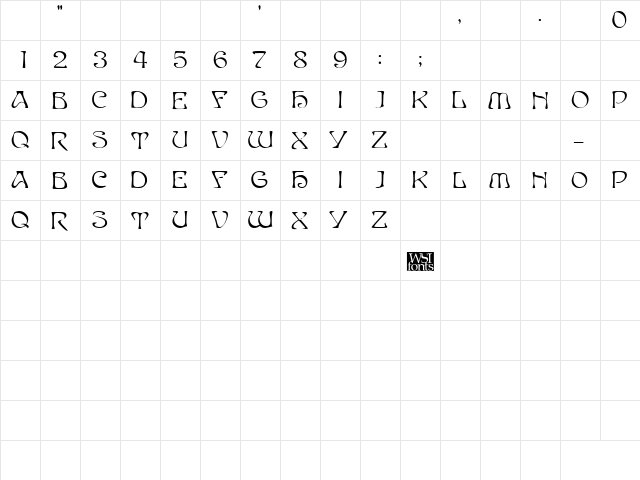
IstraNouveauDisplay Regular
Design Context for IstraNouveauDisplay Typeface
IstraNouveauDisplay brings ornamental detail and strong personality to headlines and identities, where visual impact matters more than quiet functionality.
Font Pairing: Pair with a clean neutral sans-serif for body copy to let IstraNouveauDisplay's character lead without overwhelming the composition.
Pro Tip: Treat IstraNouveauDisplay as the centrepiece of your typographic hierarchy. One strong heading set in a decorative face can carry an entire layout.